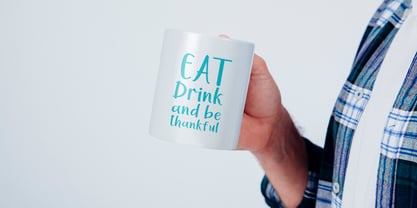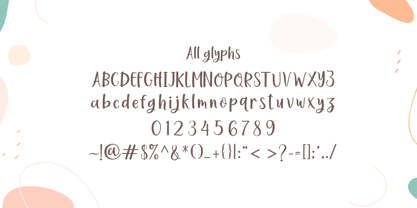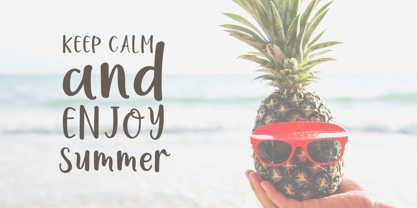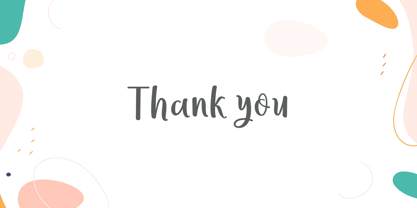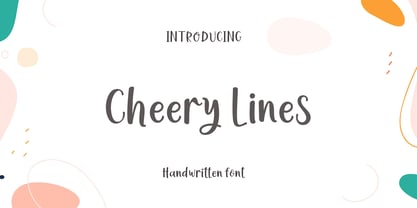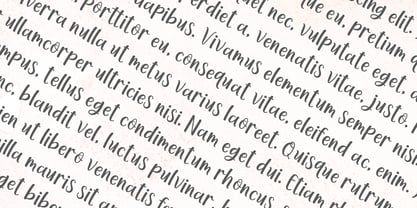
Cheery Lines
A família de fontes Cheery Lines foi desenhada por Amar Lettering e publicada pela Amarlettering. Cheery Lines contém 1 estilos. Saiba mais sobre esta família
Step into a whimsical universe of design with Font Cheery Lines, a delightful interpretation of modern calligraphy. Embodying a sense of joy and subtle elegance, this flowing script font stands out with its contemporary charm. Without a doubt, Font Cheery Lines enriches your designs with a mystic flavor of magic. Immerse yourself in the aesthetics of typography